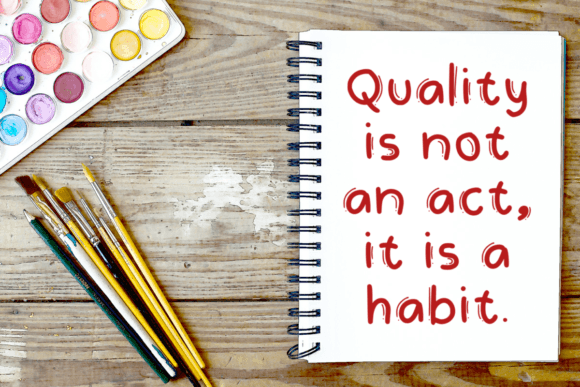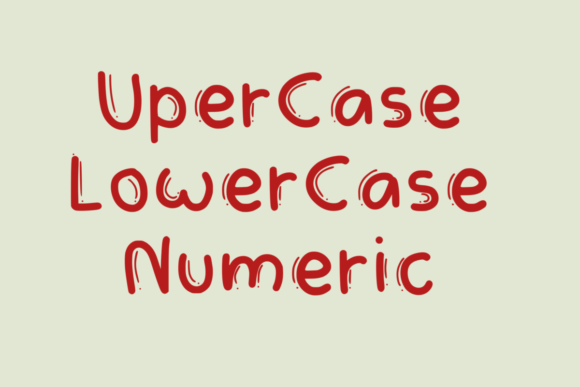
Introduction to Ristea Font
Do you ever find yourself rummaging through your digital stash of fonts, searching for that perfect one to bring your creative project to life? I’m sure you do! For me, it’s a moment of pure excitement, like stumbling upon a hidden treasure trove of inspiration. And that’s exactly what happened when I discovered the Ristea Font.
This delightful handwritten font has captured the hearts of designers and crafty enthusiasts alike, and for good reason. Its playful, whimsical nature makes it the perfect addition to any design resource, from digital presentations to handmade greeting cards. With its transparent background and high-quality design, the Ristea Font is a valuable asset for any creative project.
Whether you’re a seasoned designer or a hobbyist, the Ristea Font is a free download that’s sure to become a go-to favorite. Its versatility and charm make it an ideal choice for a wide range of applications, from crafting to digital design. In this article, we’ll delve into the world of the Ristea Font and explore its many uses and benefits.
Key Features of Ristea Font
- High-quality, elegant design perfect for creative projects
- Transparent background, allowing for seamless integration with any design
- Designed with attention to detail, featuring intricate textures and patterns
- High-resolution design, suitable for print and digital applications
- Perfect for use in branding, typography, and creative projects requiring a sophisticated look
Honest Review: Ristea Font
As a designer, I’m always on the lookout for high-quality design resources to elevate my creative projects. Recently, I stumbled upon the Ristea Font, and I’m excited to share my honest review with you.
What works well: ✨ The Ristea Font has a clean and modern aesthetic, making it perfect for a variety of design applications. I particularly appreciate the font’s versatility, as it can be used for both digital and print media. The font is also highly customizable, allowing me to easily adjust the size, color, and style to suit my needs.
- High-quality design font
- Modern aesthetic
- Customizable
To get the most out of Ristea Font, experiment with different font sizes, colors, and styles to create unique and eye-catching designs. You can also combine Ristea Font with other design elements, such as images and graphics, to create a visually appealing design.
Ristea Font is suitable for a wide range of creative projects, including logos, brochures, business cards, presentations, and documents. Its high quality and transparent background make it an ideal choice for designers and non-designers alike.